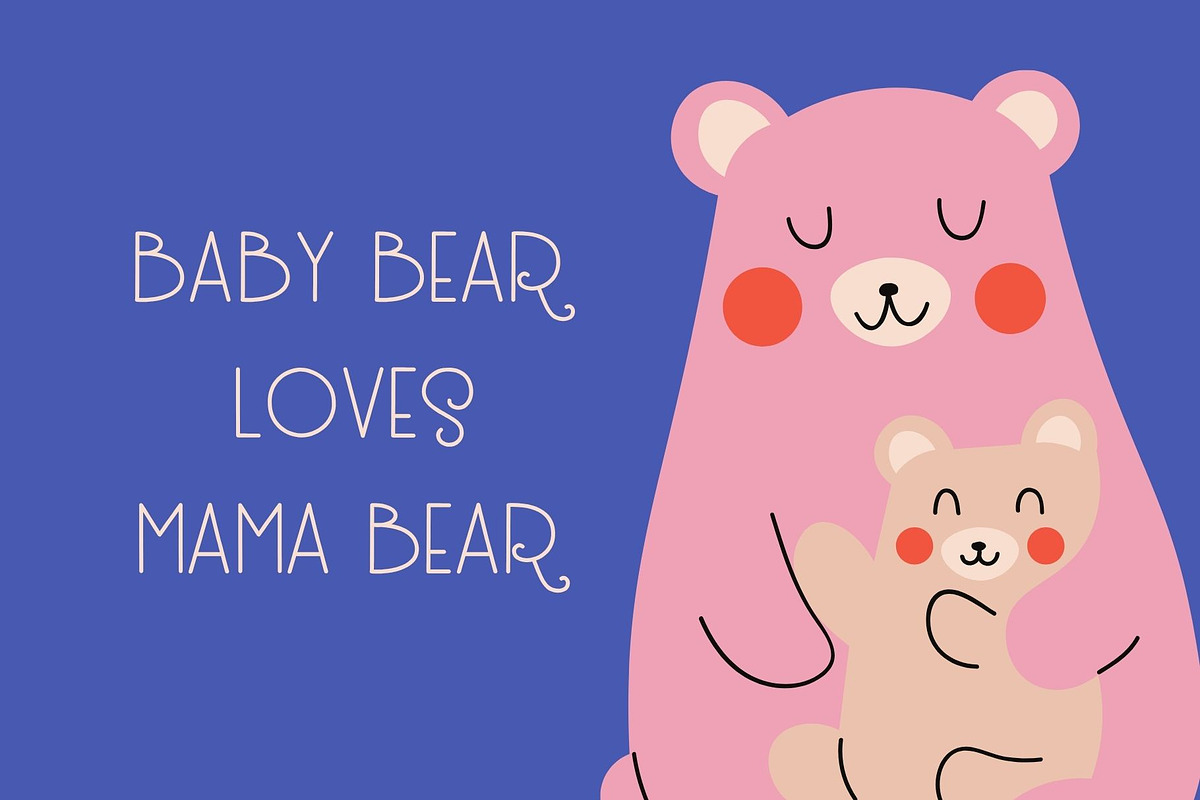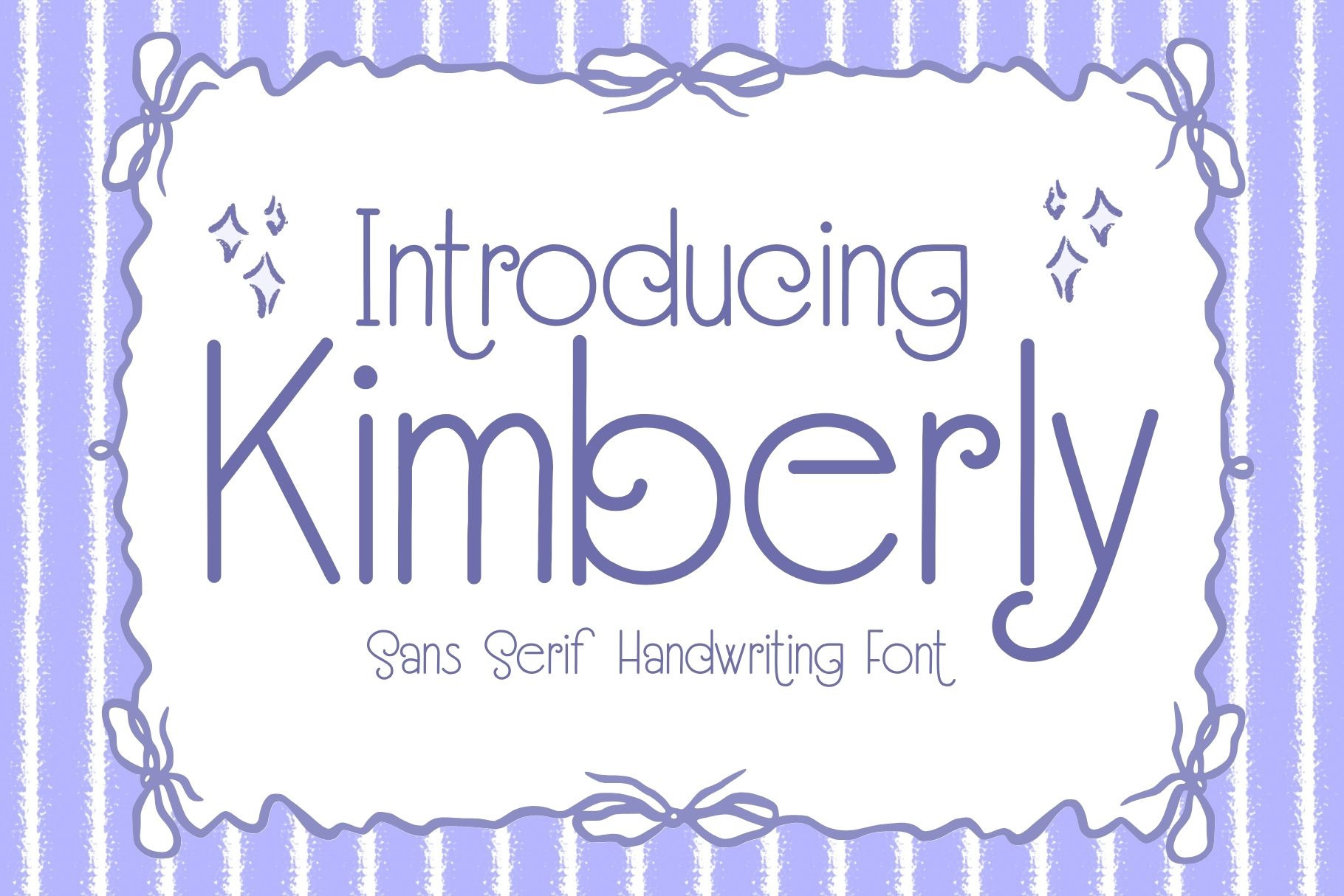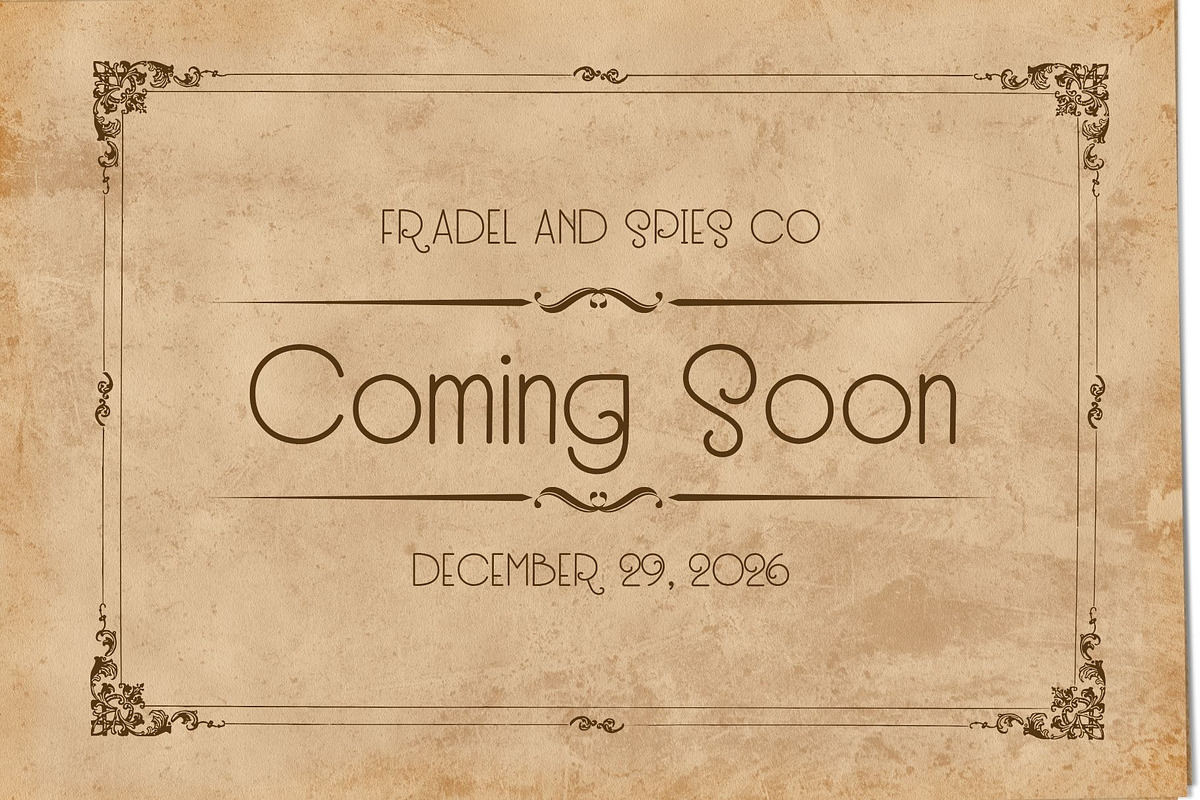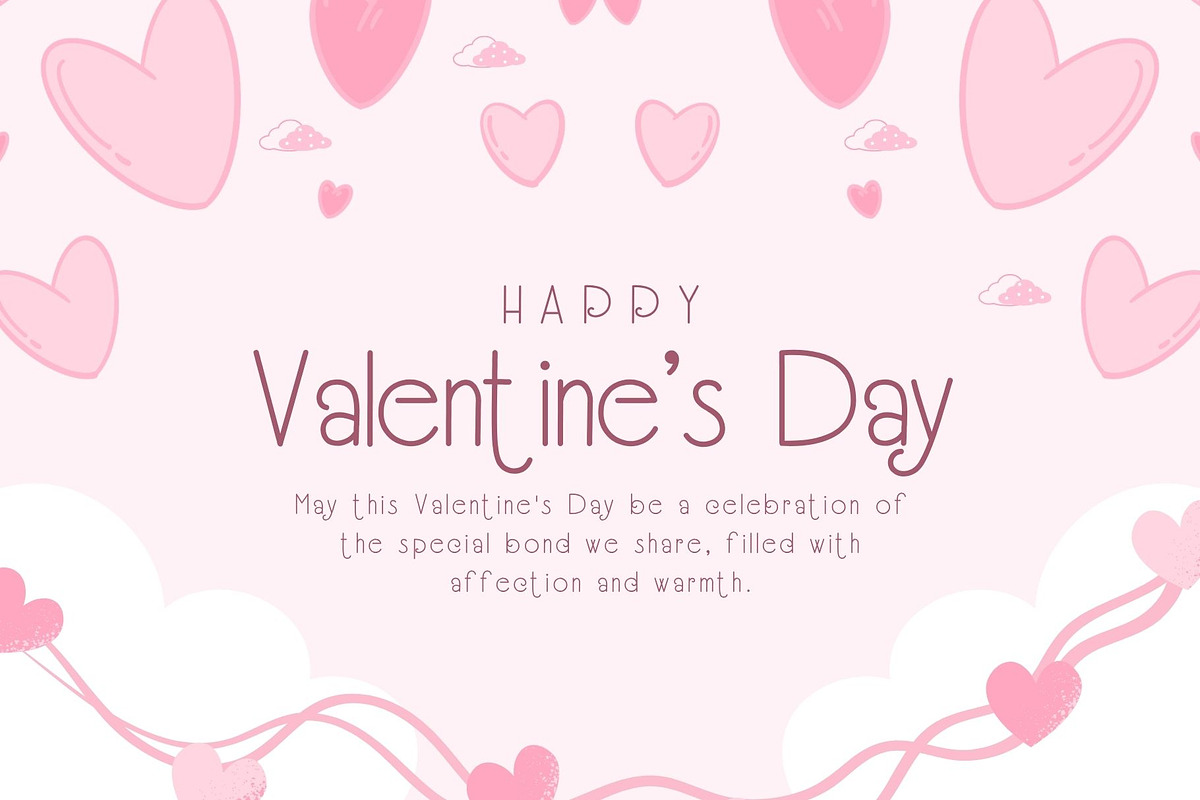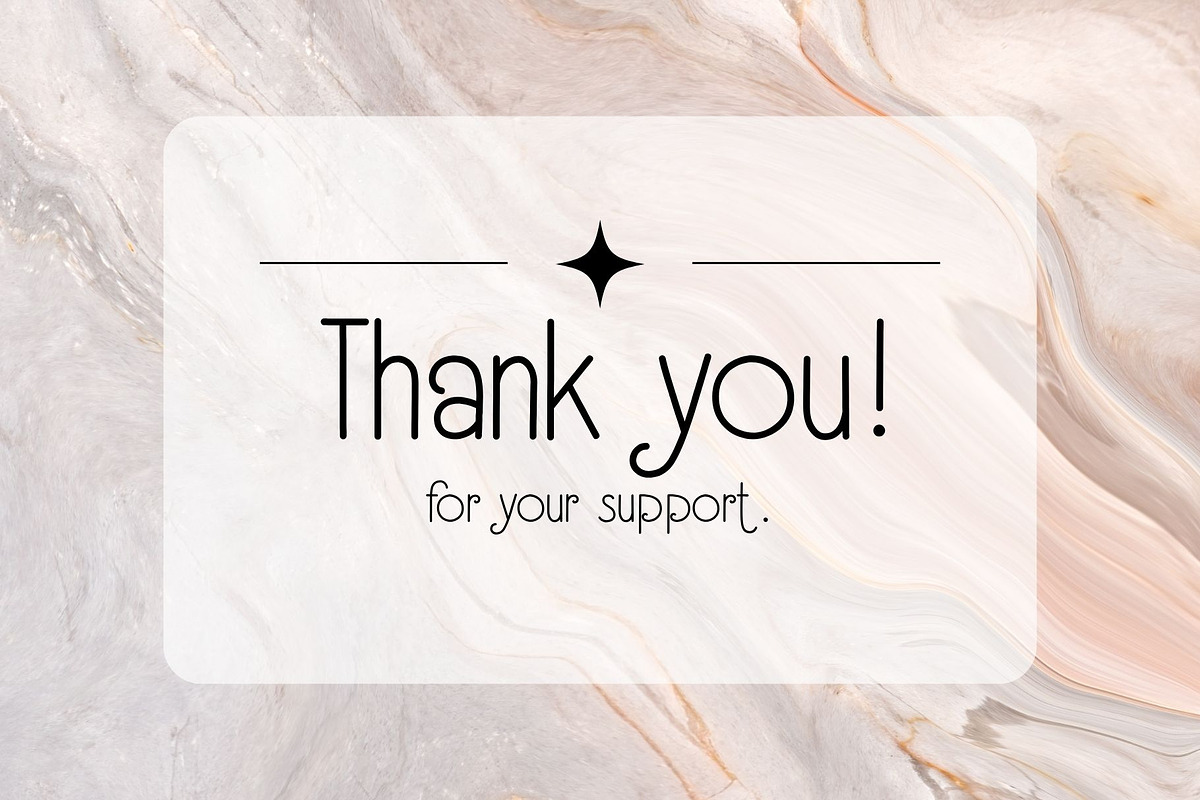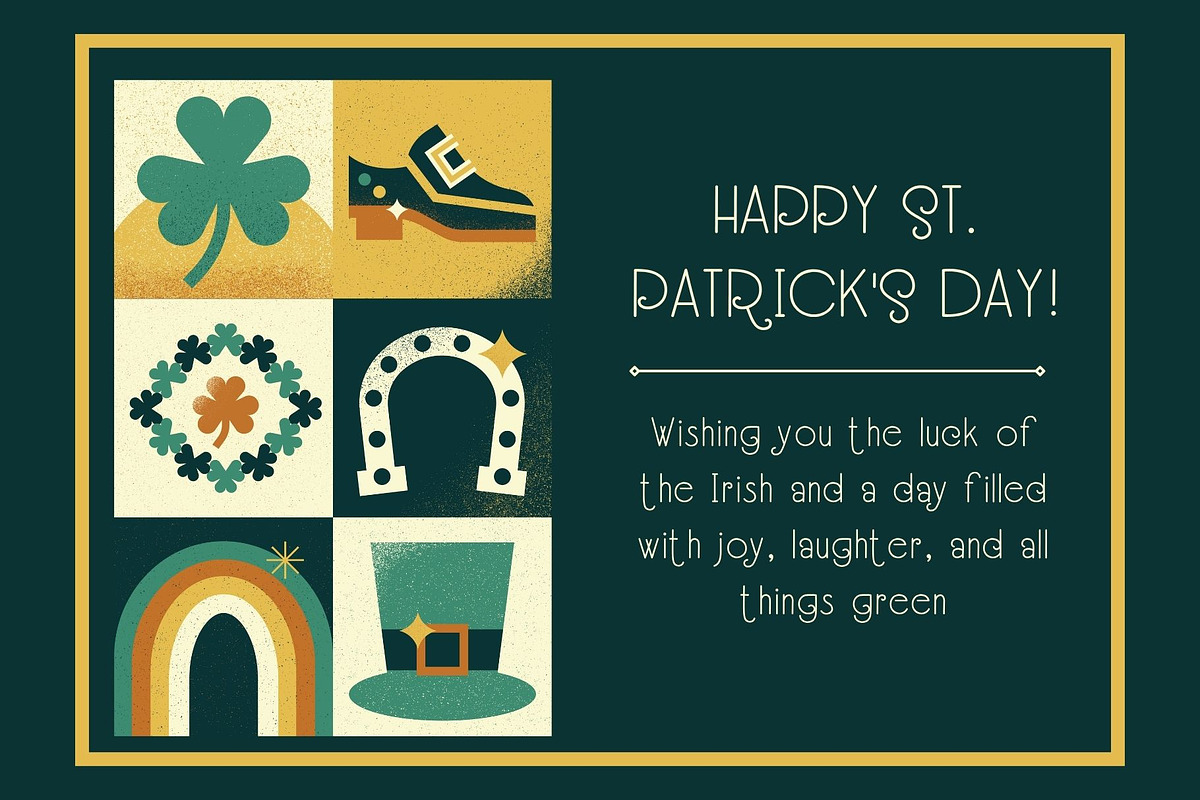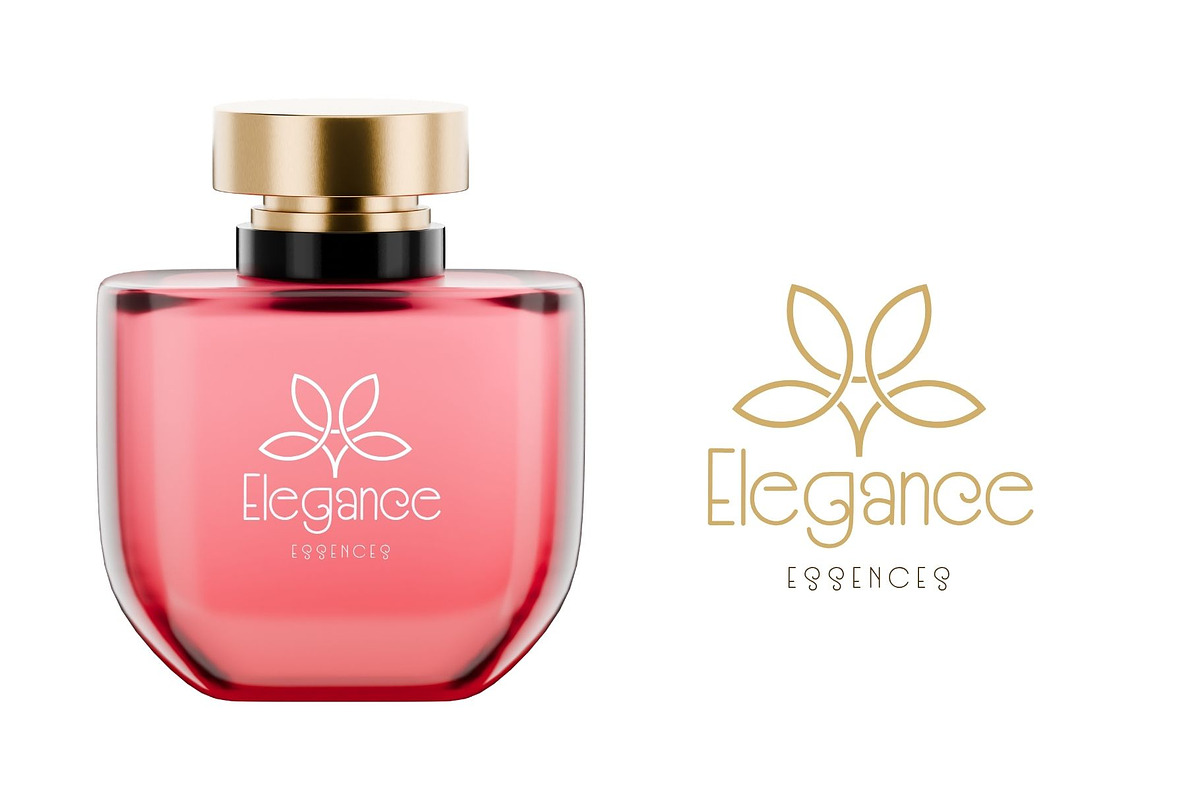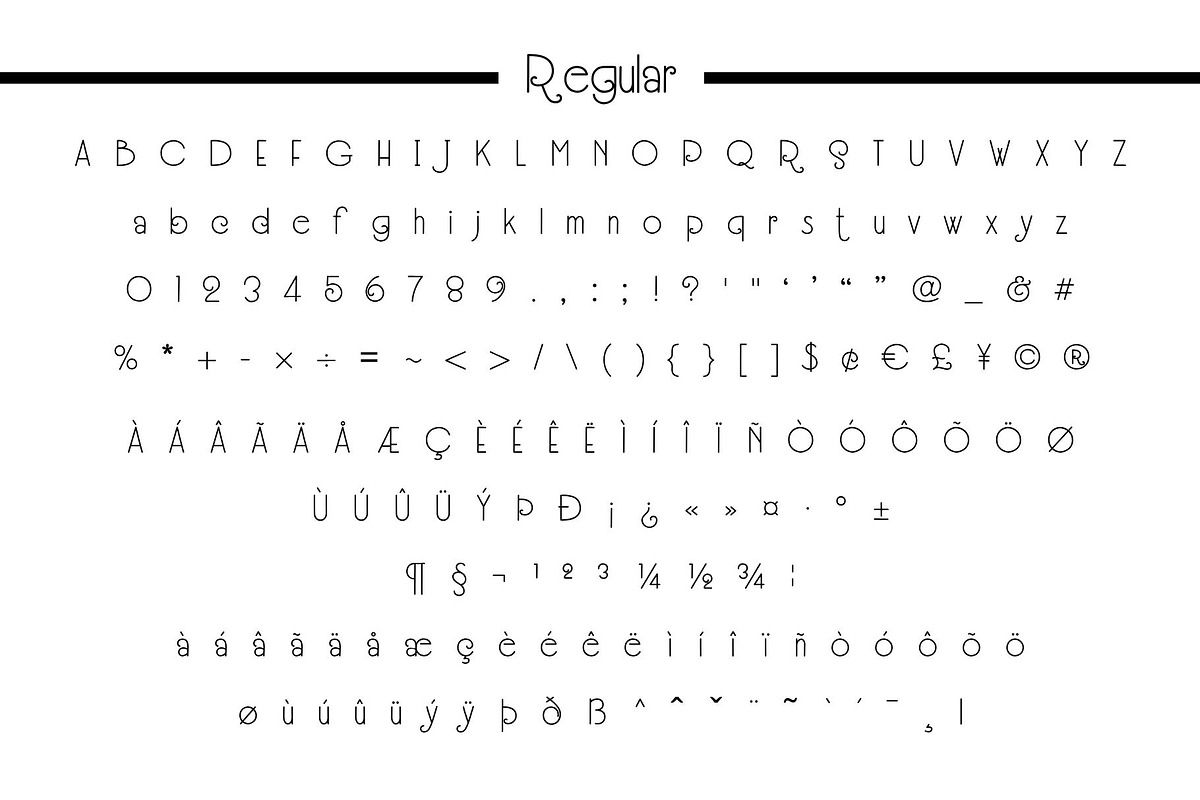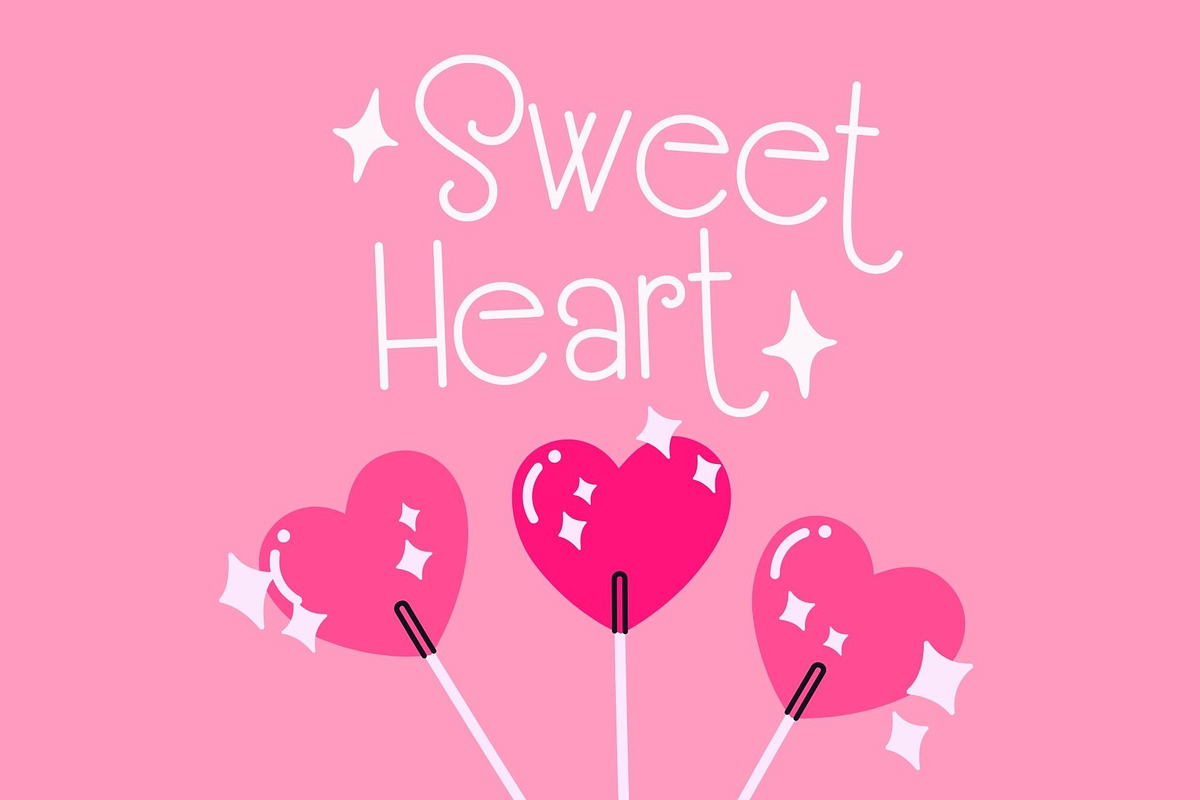
Kimberly Font
Kimberly is a delicate and stylish thin lettered sans serif font. It can be used for various projects, such as blog posts, logos, branding, ads, invitations, greeting cards, planners, photo albums, decorations, and much more.